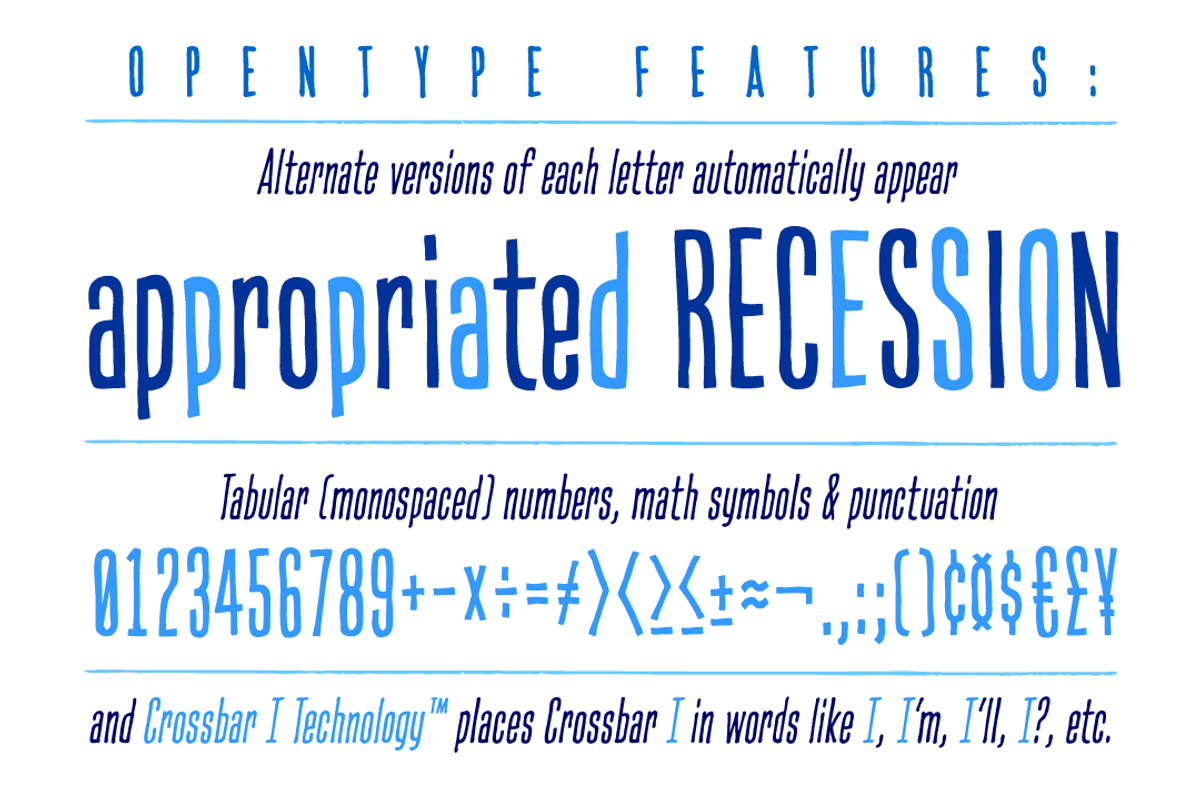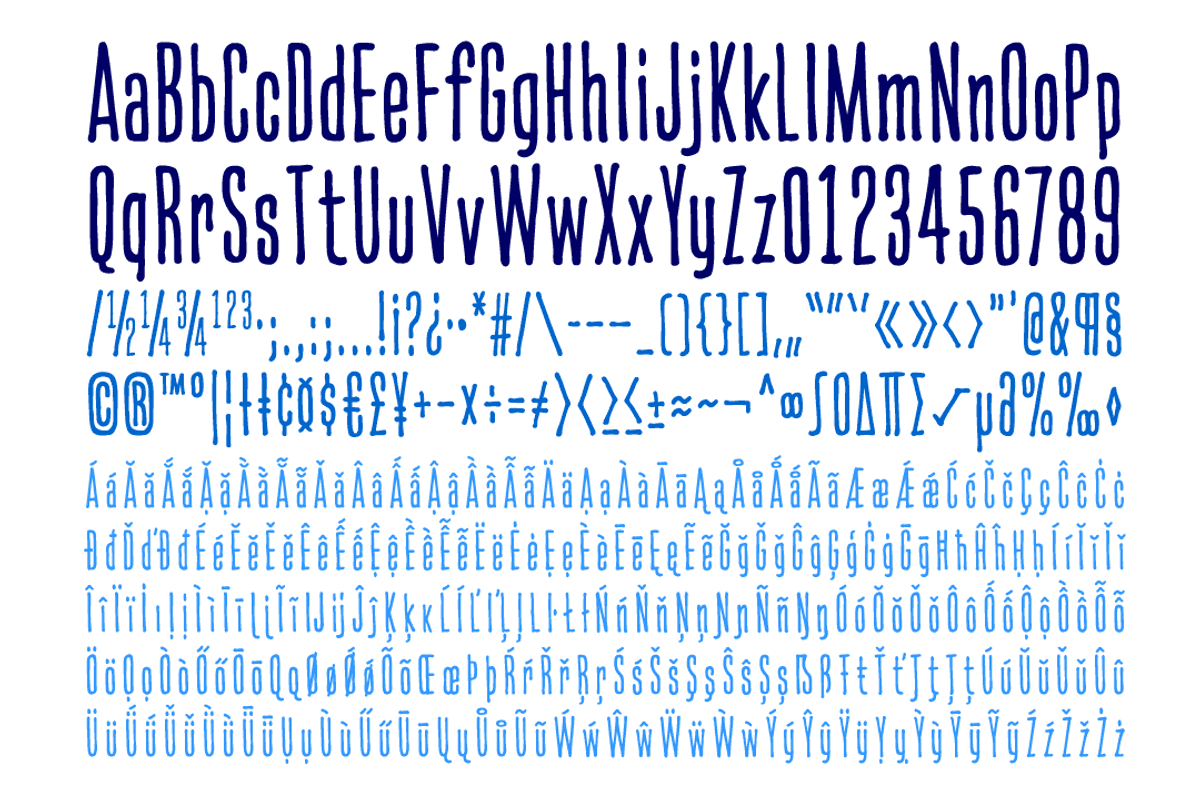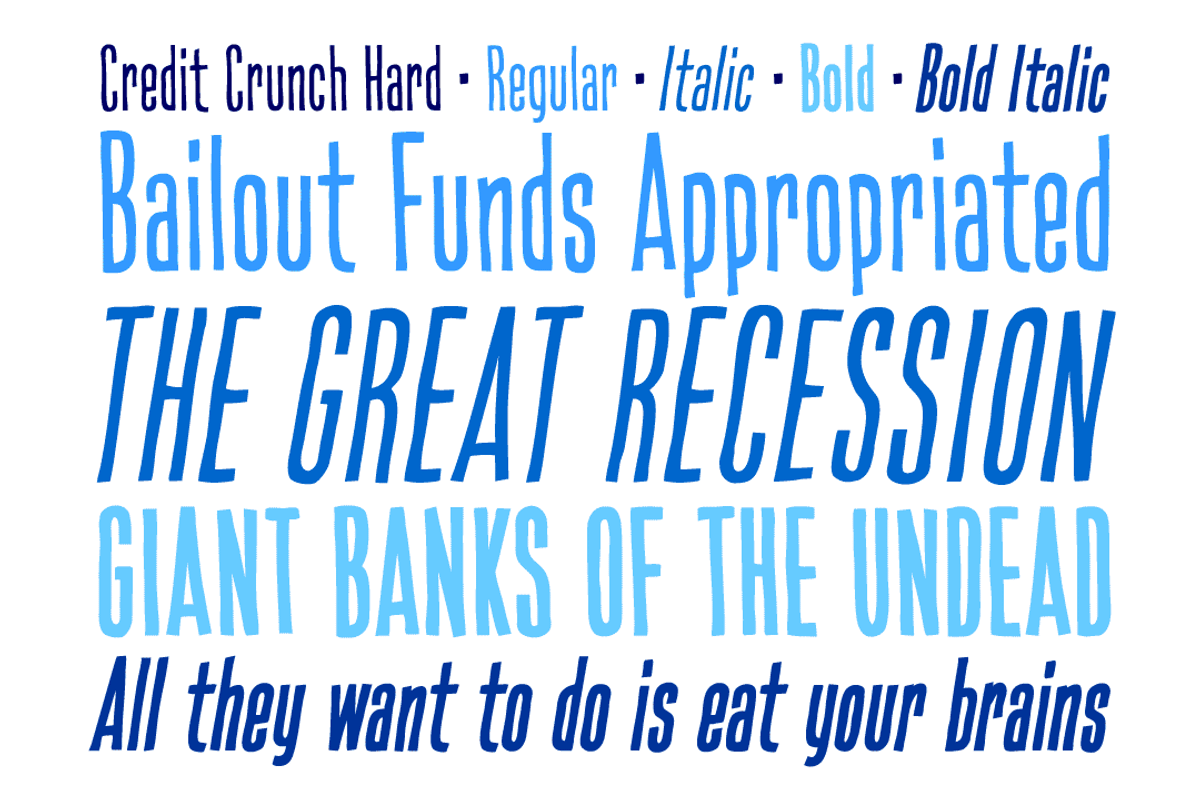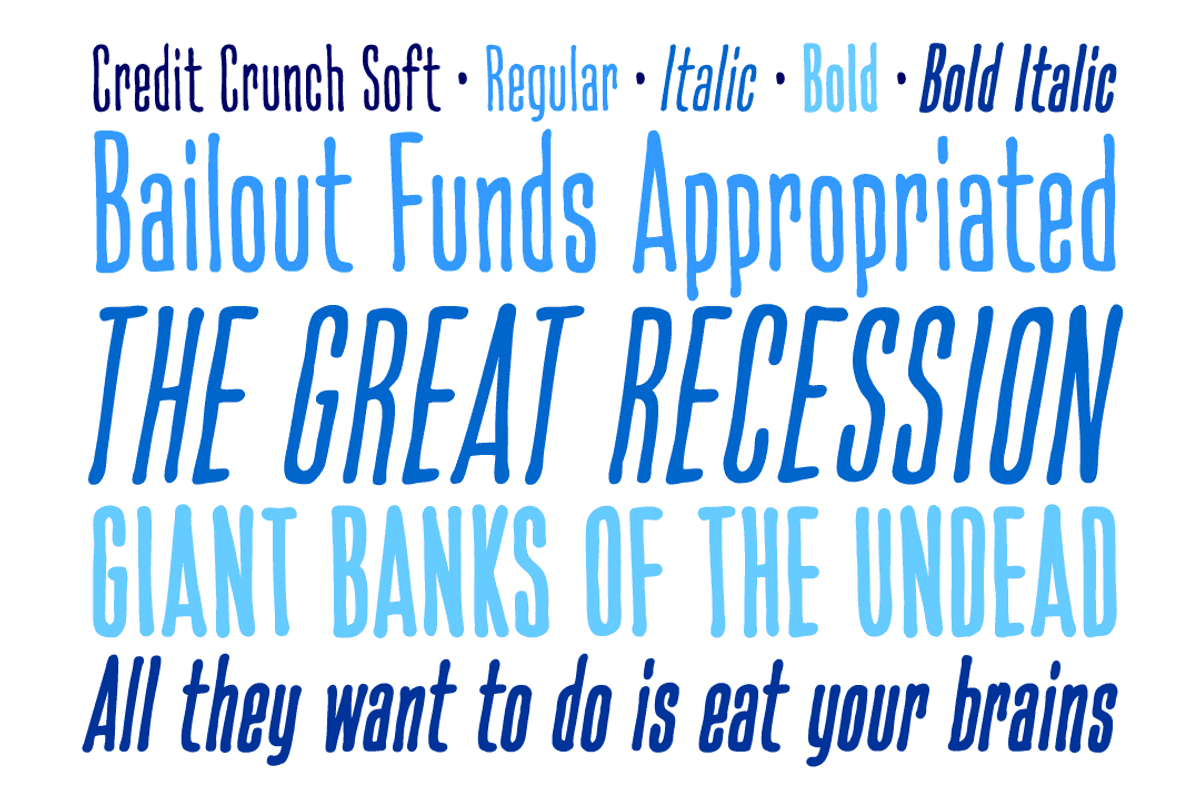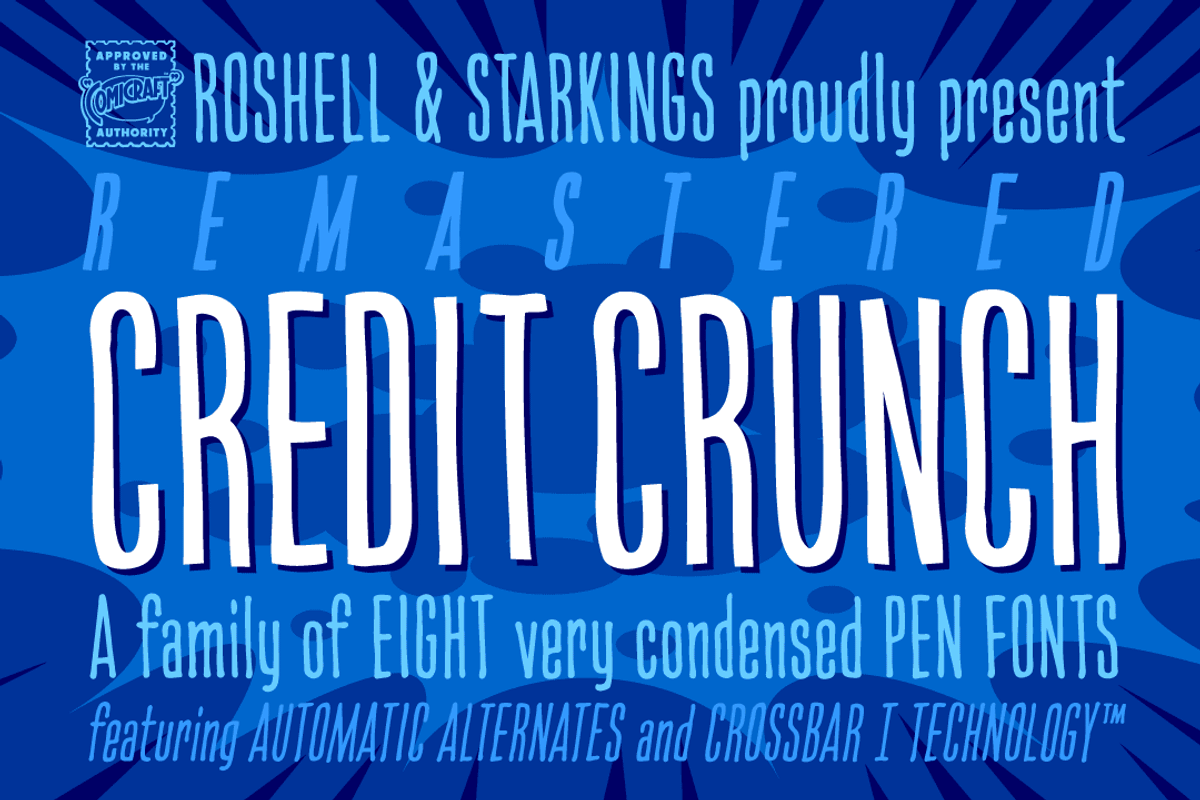
Credit Crunch - ultra tall pen font
Credit Crunch - ultra tall pen font by Comicraft Fonts is a font selected for branding, posters, packaging, typography.
- complete Hard & Soft families with Bold, Italic & Bold Italic weights
- automatic alternates & Crossbar I Technology™
- improved linespacing, letter spacing & kerning
- tabular (monospaced) numbers, math symbols & punctuation
Credit Crunch - ultra tall pen font by Comicraft Fonts fits naturally into Branding, posters, packaging, typography.